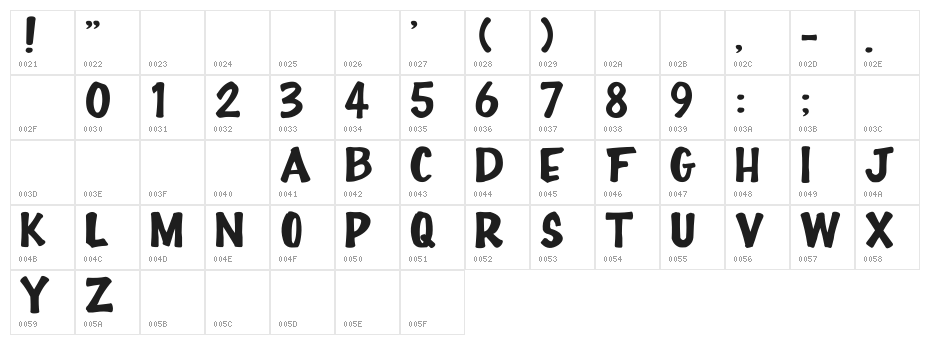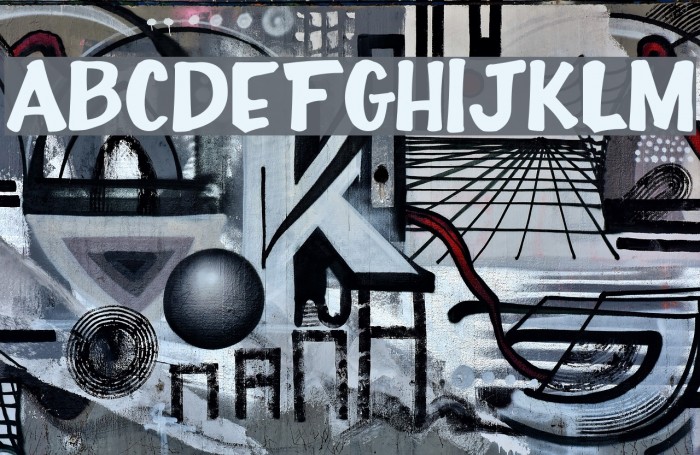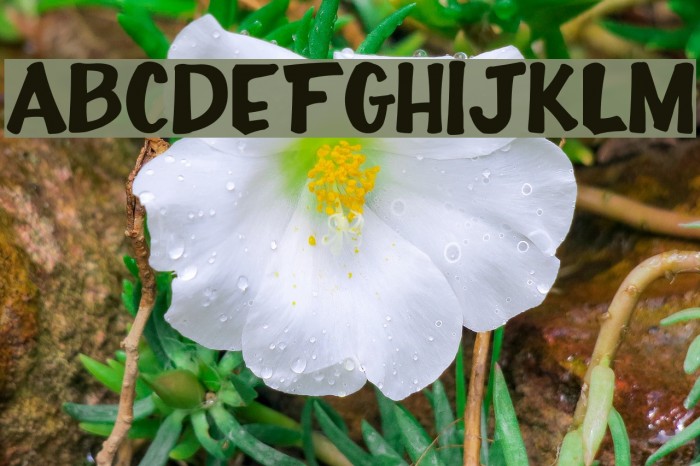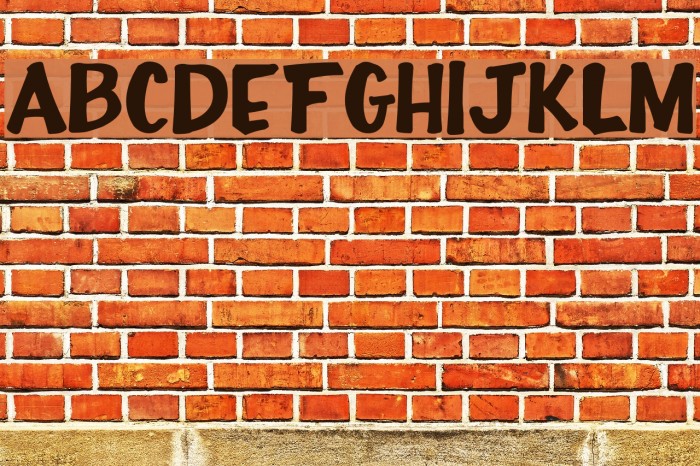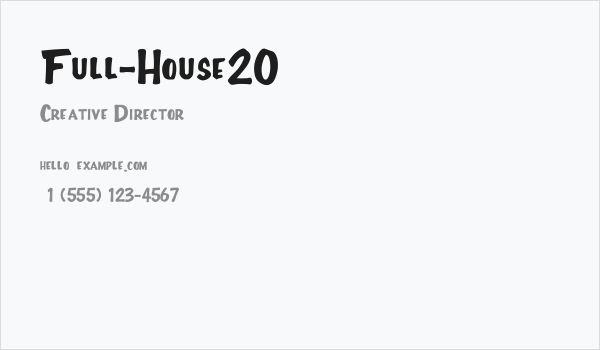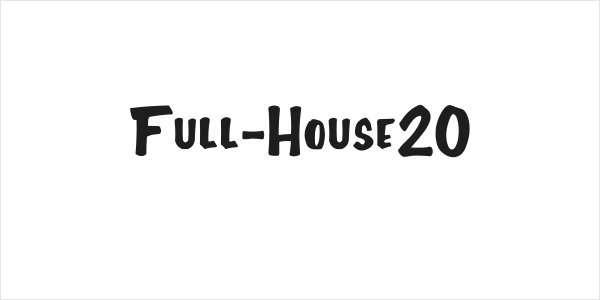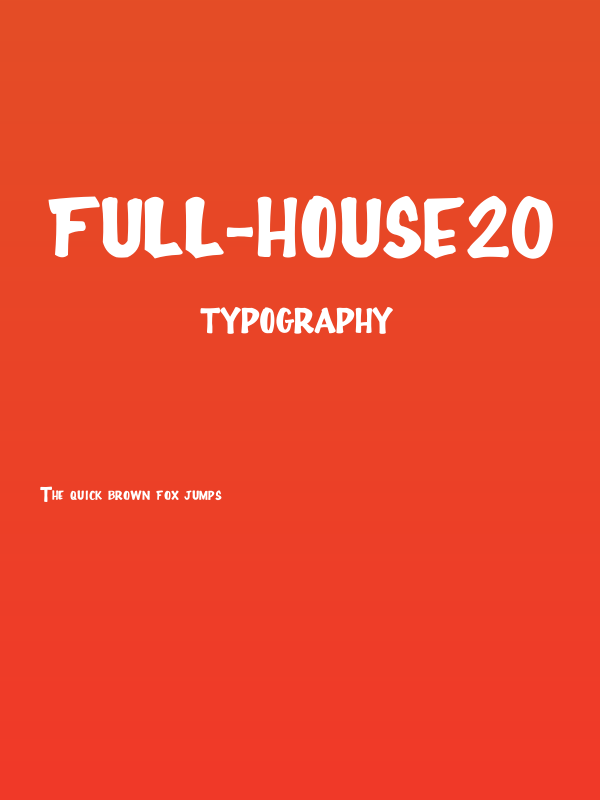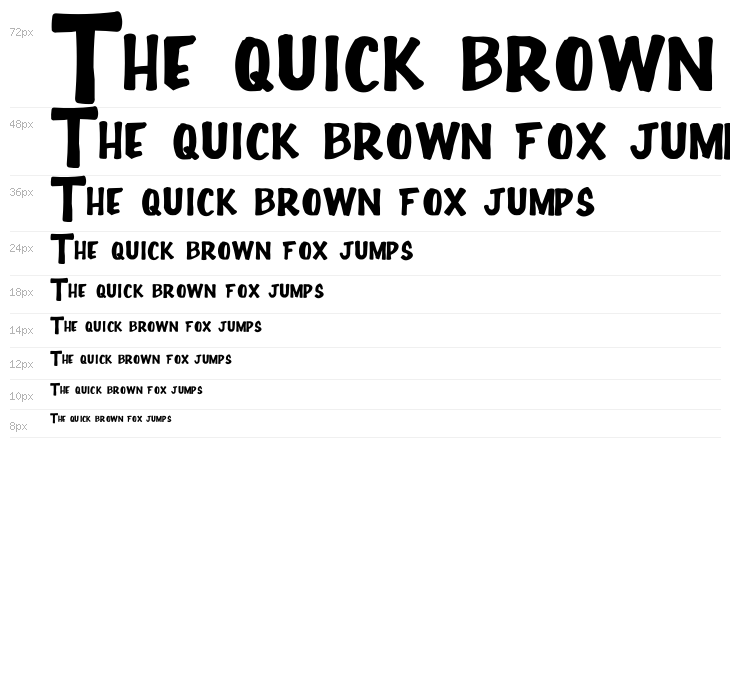
Full-House20 Font
Full-House20 Description
This font features a bold and playful style with a handwritten appearance. The characters are slightly irregular, giving them a casual and friendly feel. The strokes are thick and rounded, contributing to a sense of warmth and approachability. The uppercase and lowercase letters maintain a consistent style, while the numerals and special characters complement the overall design. This font is suitable for projects that require a touch of personality and informality.
| Overall Style | Playful, Casual |
| Proposed Projects | Ideal for children's books, greeting cards, playful branding, and informal event invitations. |